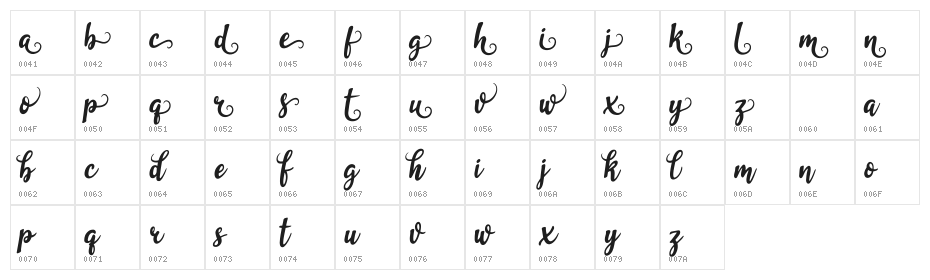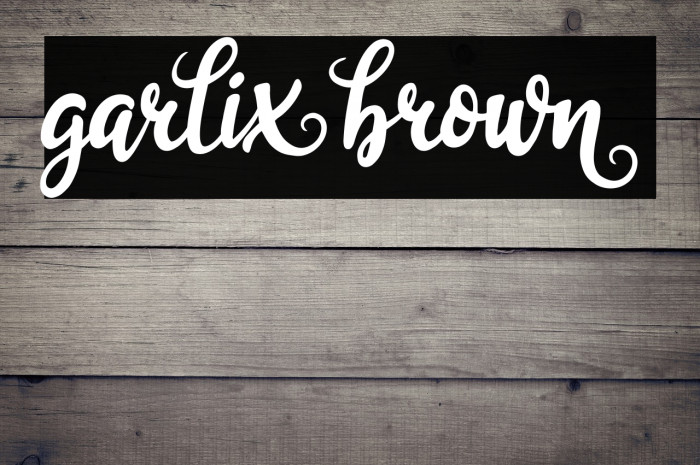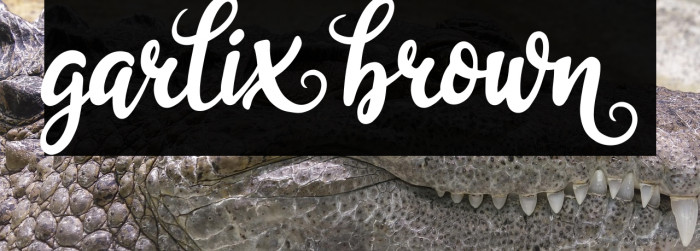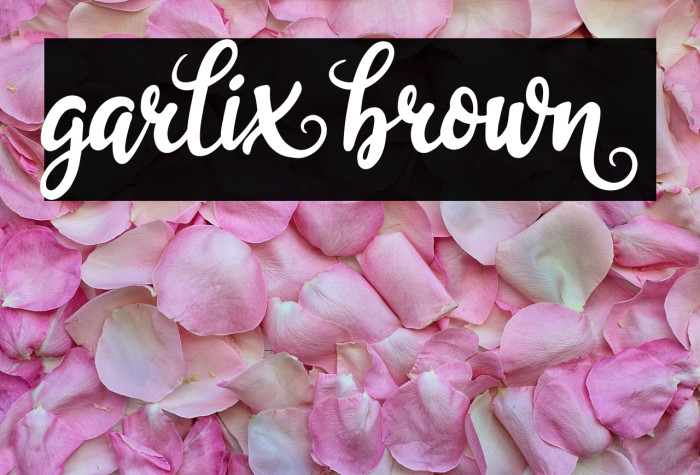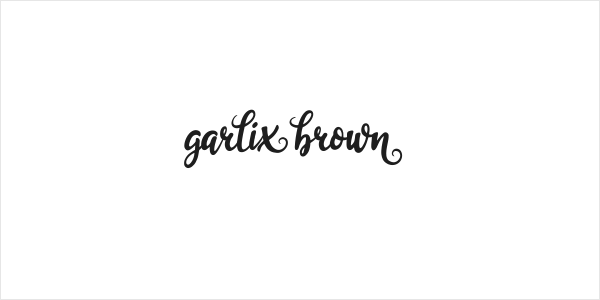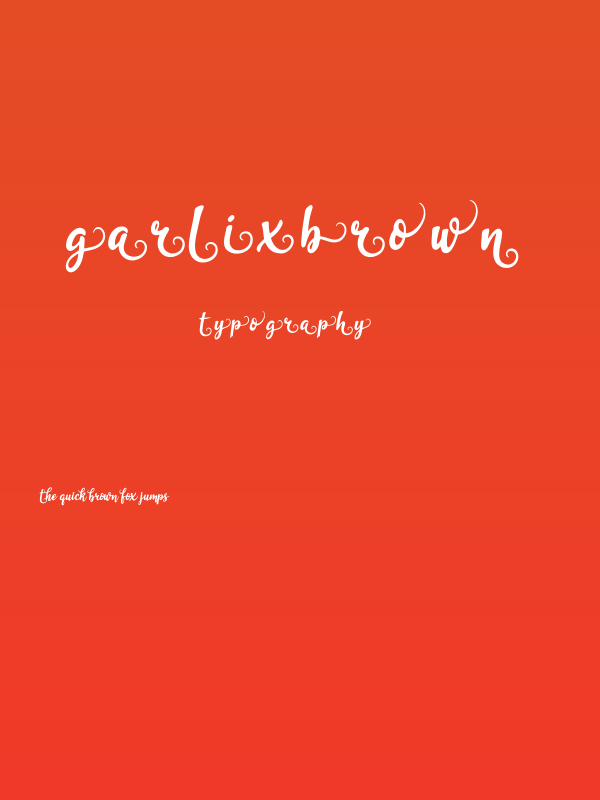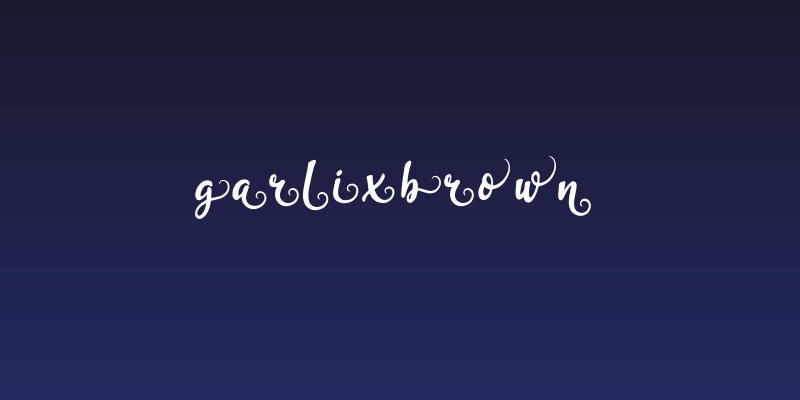
garliXbrowN Font
garliXbrowN Description
This font features a playful and whimsical script style with elegant, flowing curves and flourishes. The characters are interconnected, creating a sense of continuity and fluidity. The uppercase letters are bold and prominent, while the lowercase letters maintain a consistent, graceful appearance. The font's decorative nature is enhanced by its swashes and loops, making it ideal for creative and artistic projects. Its unique style captures attention and adds a touch of sophistication and charm to any design.